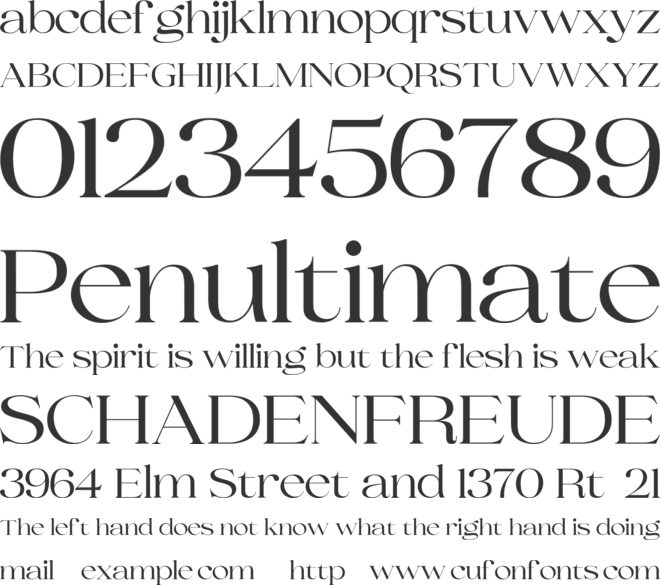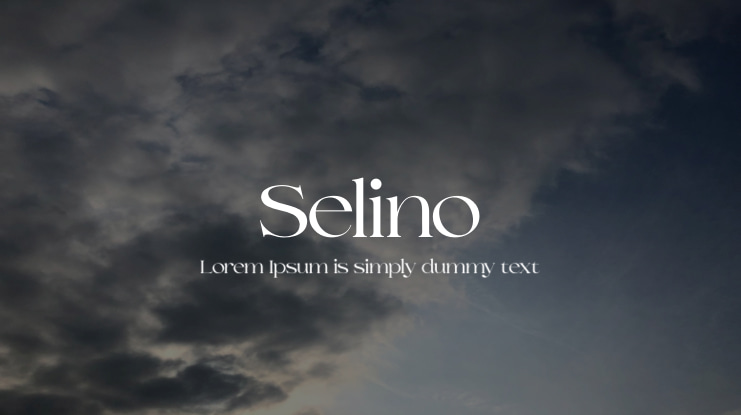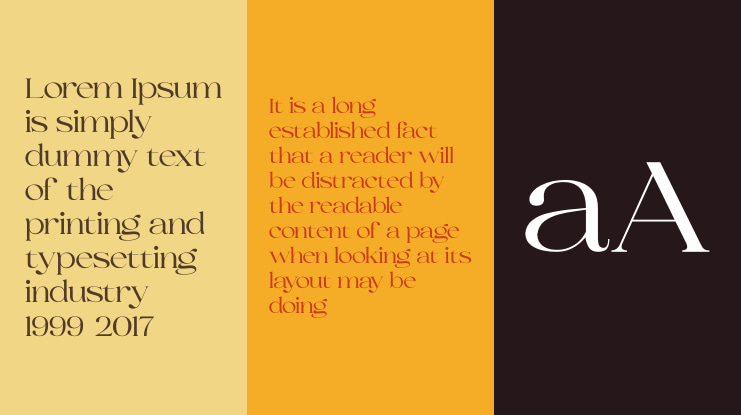
Selino Font Family
Introducing, Selino Family. An elegant, classy with a fashionable touch family typeface.
Selino Typeface is perfectly suitable for layout design for quotes or body copy, best used as a display for headings, logos, branding, magazines, product packaging, invitations. logotypes, and much more. Don't wait to add this luxury font family to your collection and start designing straight away.